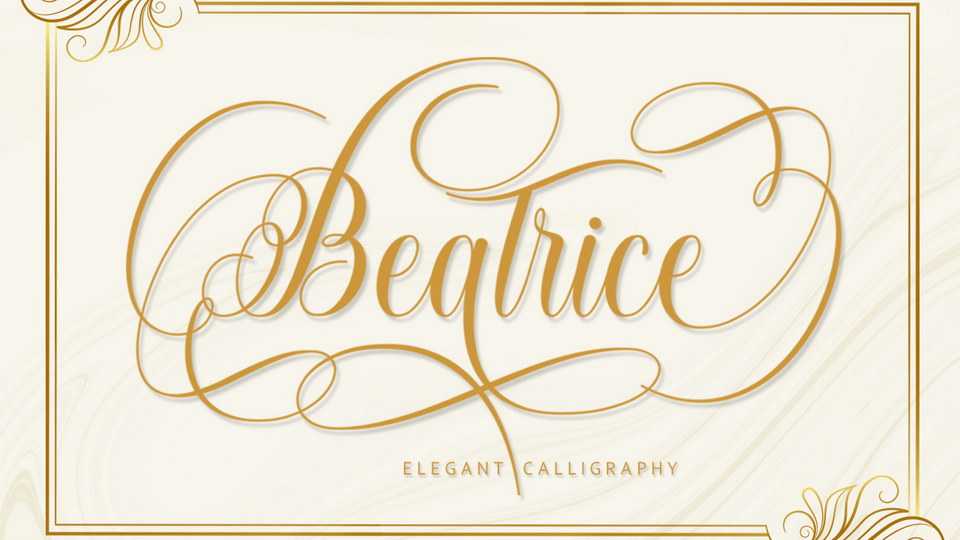
Download Beatrice font, a beautiful script that feels incredibly elegant and flowing. Beatrice looks stunning on wedding invitations, quotes, greeting cards, logos and every design which needs a handwritten touch.